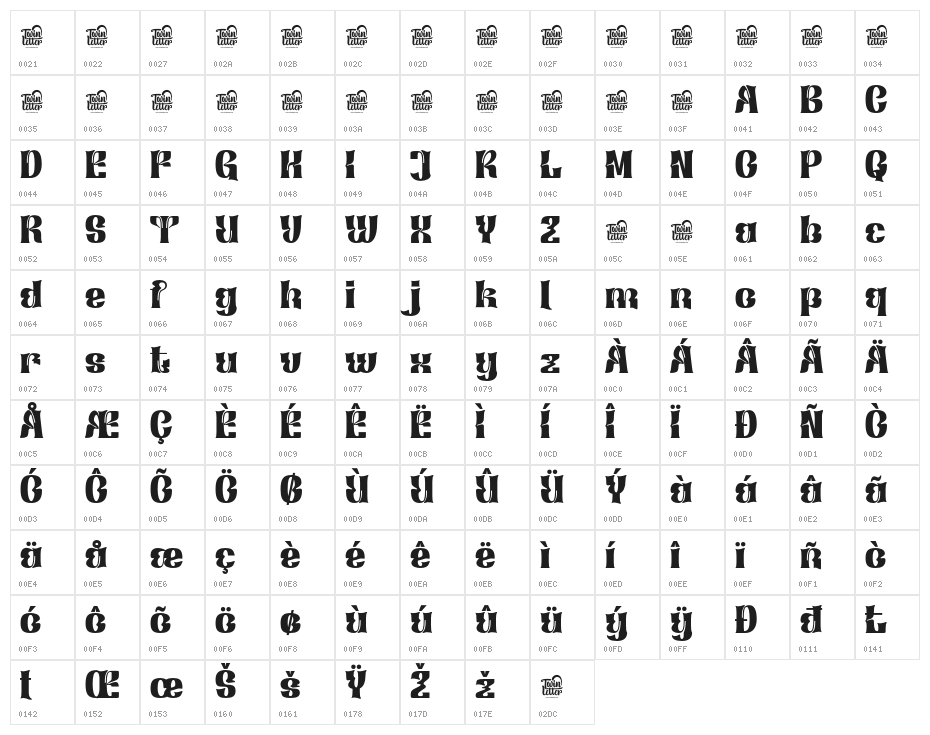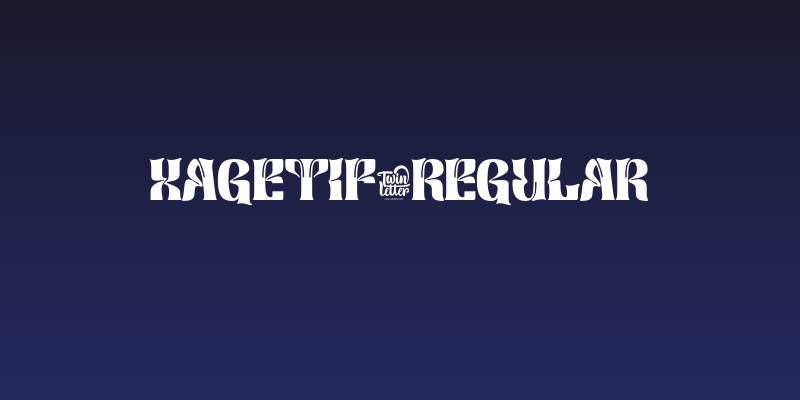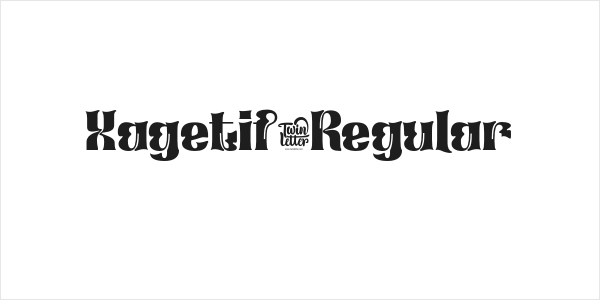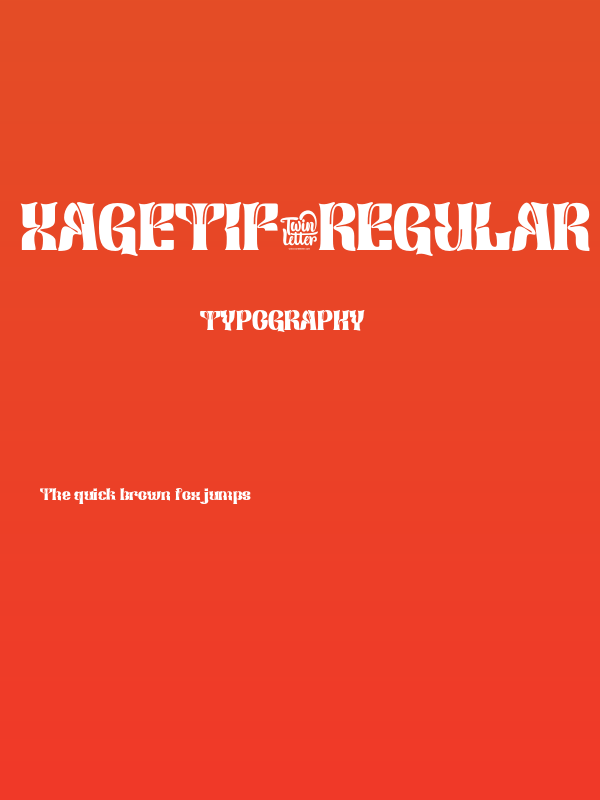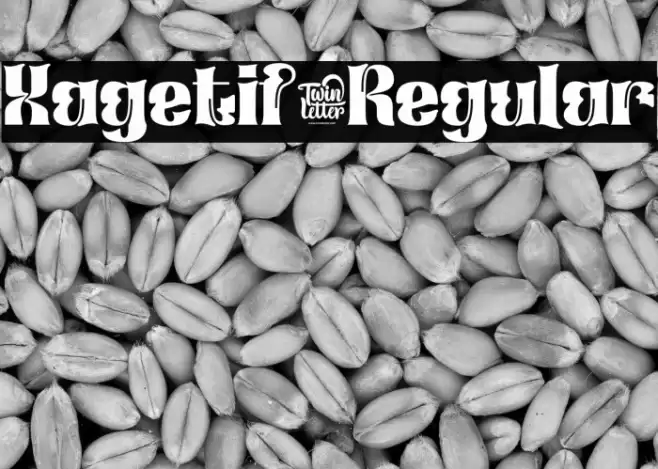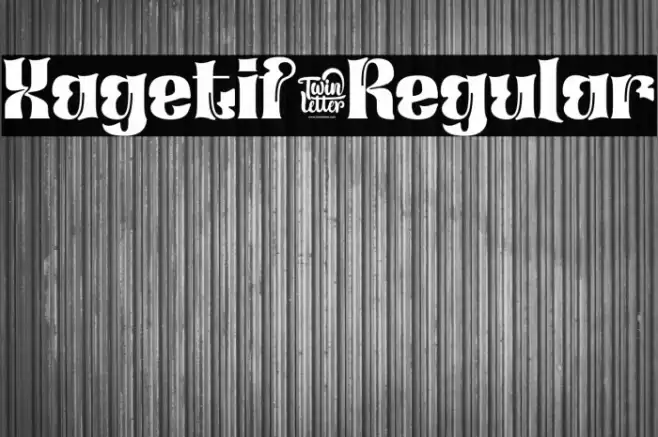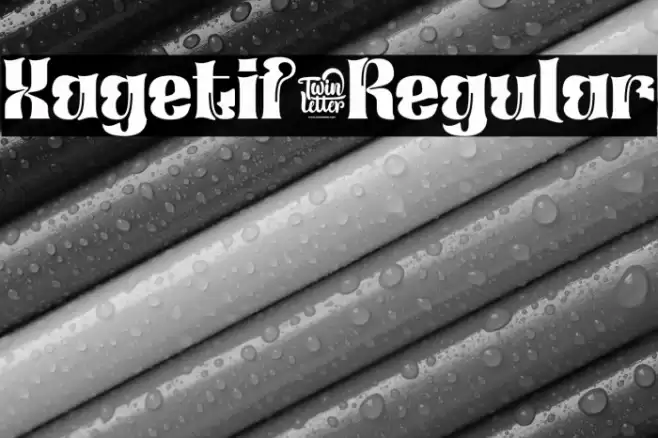
Xagetif-Regular Font
Xagetif-Regular Description
This font features a bold and dynamic style with a distinct decorative flair. The characters are designed with a unique blend of thick and thin strokes, creating a high contrast that adds to its visual appeal. The uppercase letters exhibit a strong presence with their wide and robust forms, while the lowercase letters maintain a consistent style that complements the overall design. The special characters are crafted with the same attention to detail, ensuring a cohesive look across all elements. This font's artistic nature makes it suitable for creative and expressive projects.